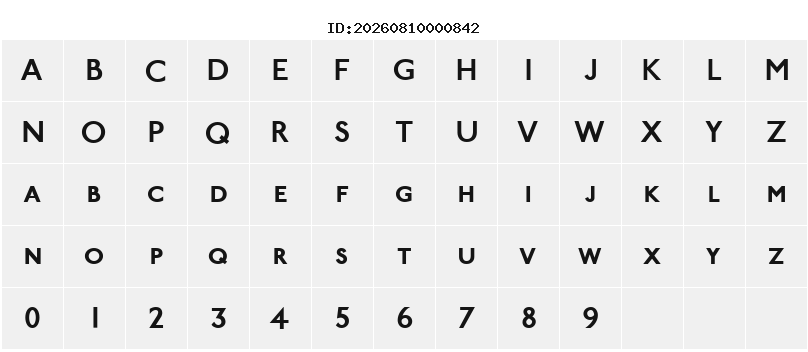
• Font Name: PaddingtonSC
• Full Font Name: PaddingtonSC Bold
About PaddingtonSC.ttf
PaddingtonSC.ttf is a modern, elegant sans-serif font designed for ultimate readability and visual harmony. Perfect for branding, headlines, web design, and print materials.